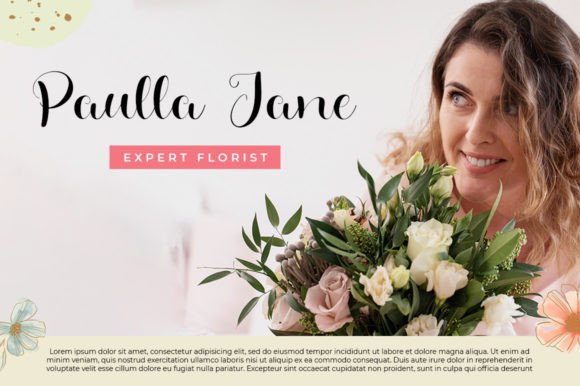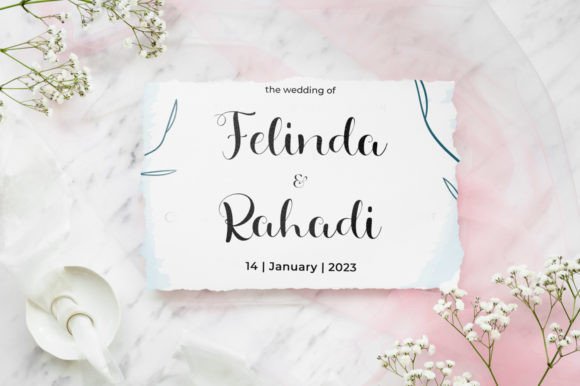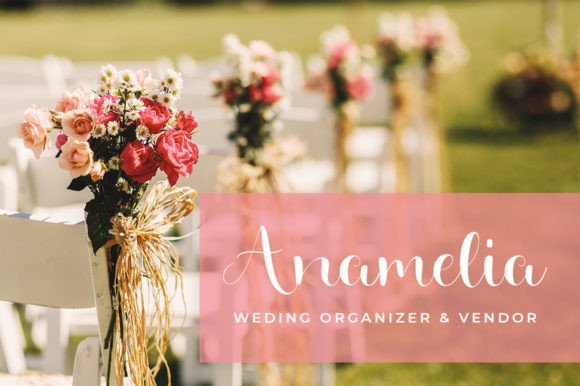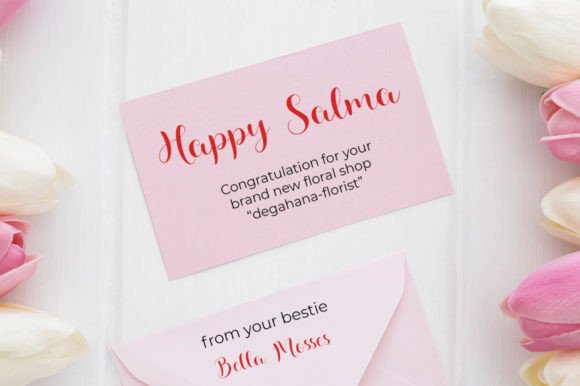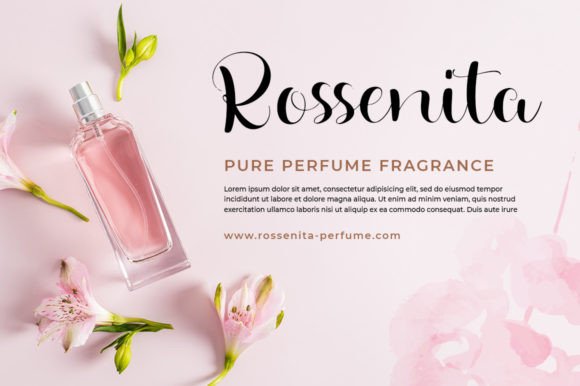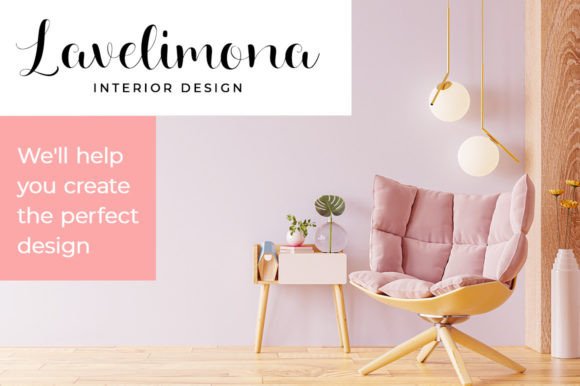
Introducing Destincha Font: Elevate Your Designs with Elegance and Sophistication
In the world of digital design, fonts play a crucial role in conveying the tone and personality of a brand or project. If you’re looking for a stylish and modern handwritten font to add a personal touch to your latest art project, look no further than Destincha Font. This beautiful script font offers an elegant, classy, and contemporary look that’s perfect for designers and crafters seeking to elevate their designs.
What is Destincha Font?
Destincha Font is a stunning script font that exudes sophistication and refinement. Its gorgeous typographic style makes it an ideal choice for a wide range of projects, from logos and branding to invitations, stationery, and wedding designs. Whether you’re a professional designer or a crafty DIY enthusiast, Destincha Font is sure to impress.
Key Features of Destincha Font
- Elegant and Classy Look: Destincha Font boasts a stylish and modern design that’s perfect for creating sophisticated and eye-catching visuals.
- Handwritten Style: This beautiful script font mimics the look of handwritten text, adding a personal touch to your designs.
- Versatile: Destincha Font is suitable for a wide range of projects, including logos, branding, invitations, stationery, wedding designs, social media posts, advertisements, product packaging, and more.
- Easy to Read: Despite its elegant and cursive style, Destincha Font remains highly legible, making it perfect for both digital and print applications.
Use Cases for Destincha Font
Destincha Font is an incredibly versatile font that can be used in various design projects. Here are some ideas to get you started:
- Logos and Branding: Create a lasting impression with a custom logo or brand identity that showcases your unique style.
- Invitations and Stationery: Add a touch of elegance to your invitations, greeting cards, and stationery with Destincha Font.
- Wedding Designs: Make your wedding designs truly special with this beautiful script font, perfect for wedding invitations, programs, and more.
- Social Media Posts: Elevate your social media presence with eye-catching graphics and typography that showcase your brand’s personality.
- Advertisements and Product Packaging: Stand out in a crowded market with Destincha Font, used in advertisements, product packaging, and labels.
Why Choose Destincha Font?
With so many fonts available, why choose Destincha Font? Here are just a few reasons why designers and crafters love this beautiful script font:
- Unique and Distinctive: Destincha Font offers a fresh and unique perspective on traditional script fonts, making it perfect for designers seeking to stand out.
- High-Quality Design: This font is meticulously crafted to ensure that it looks stunning in any design project.
| Font Name | Destincha Font |
| Author | fanastudio |
If you’re looking for a stylish and elegant handwritten font to elevate your designs, Destincha Font is an excellent choice. Its gorgeous typographic style, versatility, and ease of use make it perfect for a wide range of projects. Whether you’re a professional designer or a crafty DIY enthusiast, Destincha Font is sure to become a go-to font in your collection.